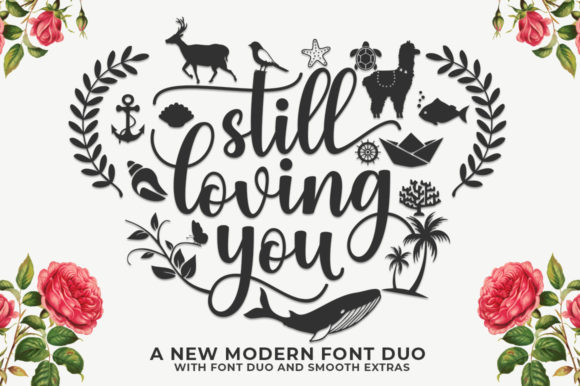
Immerse yourself in the captivating world of romance and elegance with Still Loving You Font, a masterpiece crafted by Natural Ink. This exquisite script font, adorned with an irregular baseline, exudes a timeless charm that will leave you spellbound. Experience the allure of its trendy and feminine style, reminiscent of love letters penned with heartfelt emotions.
With Still Loving You-Font Duo With Extras, your creative potential knows no bounds. Bask in the beauty of this font gracing wedding invitations, thank-you cards, and heartfelt quotes. Its versatility extends to greeting cards, logos, and business cards, adding a touch of sophistication to every project you undertake.
Indulge in the versatility of Still Loving You, seamlessly blending with ink or watercolors to create breathtaking designs. Its adaptability makes it the perfect companion for both digital and traditional art forms.
Embrace the allure of Still Loving You, the ultimate font for expressing love, friendship, and heartfelt connections. Let its enchanting characters dance across your designs, captivating hearts and igniting emotions.
Still Loving You beckons you to embark on a creative journey of love and passion. Its captivating style will transform your designs into works of art, leaving a lasting impression on all who behold them.